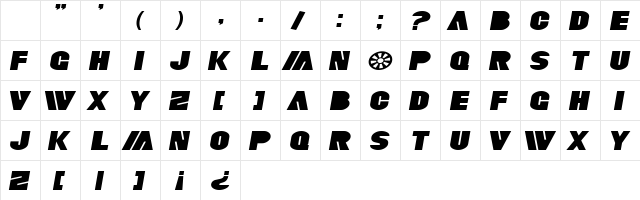
Complete SF Fortune Wheel Exp Italic glyph index. Displaying only characters natively supported by SF Fortune Wheel Exp Italic font.
SF Fortune Wheel Exp is a composed and adaptable typeface that performs quietly and consistently across a wide range of design contexts. The slanted form adds forward momentum and visual energy.
Pro Tip: Use SF Fortune Wheel Exp for emphasis, pull quotes, and subheadings where its slanted energy can add rhythm to the layout.